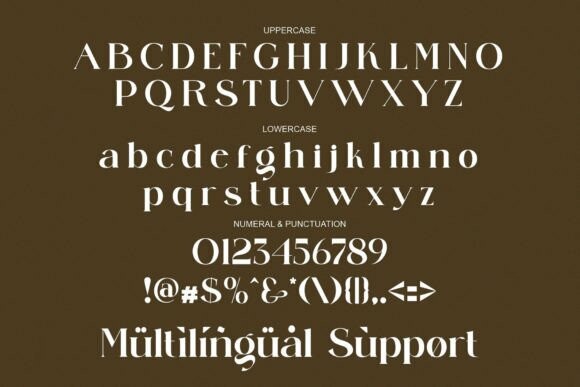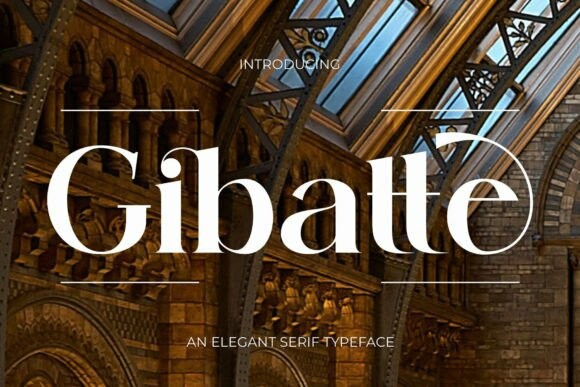
Gibatte Font
Designer: humaira_std
Gibatte Font is an elegant and classy serif typeface – This font is both modern and nostalgic and works great for logos, magazines, and social media. Already matched up and ready to be used together for your next design! For those of you who need a touch of elegance, stylish, classy, chic, and modernity for your designs, this font was created for you!